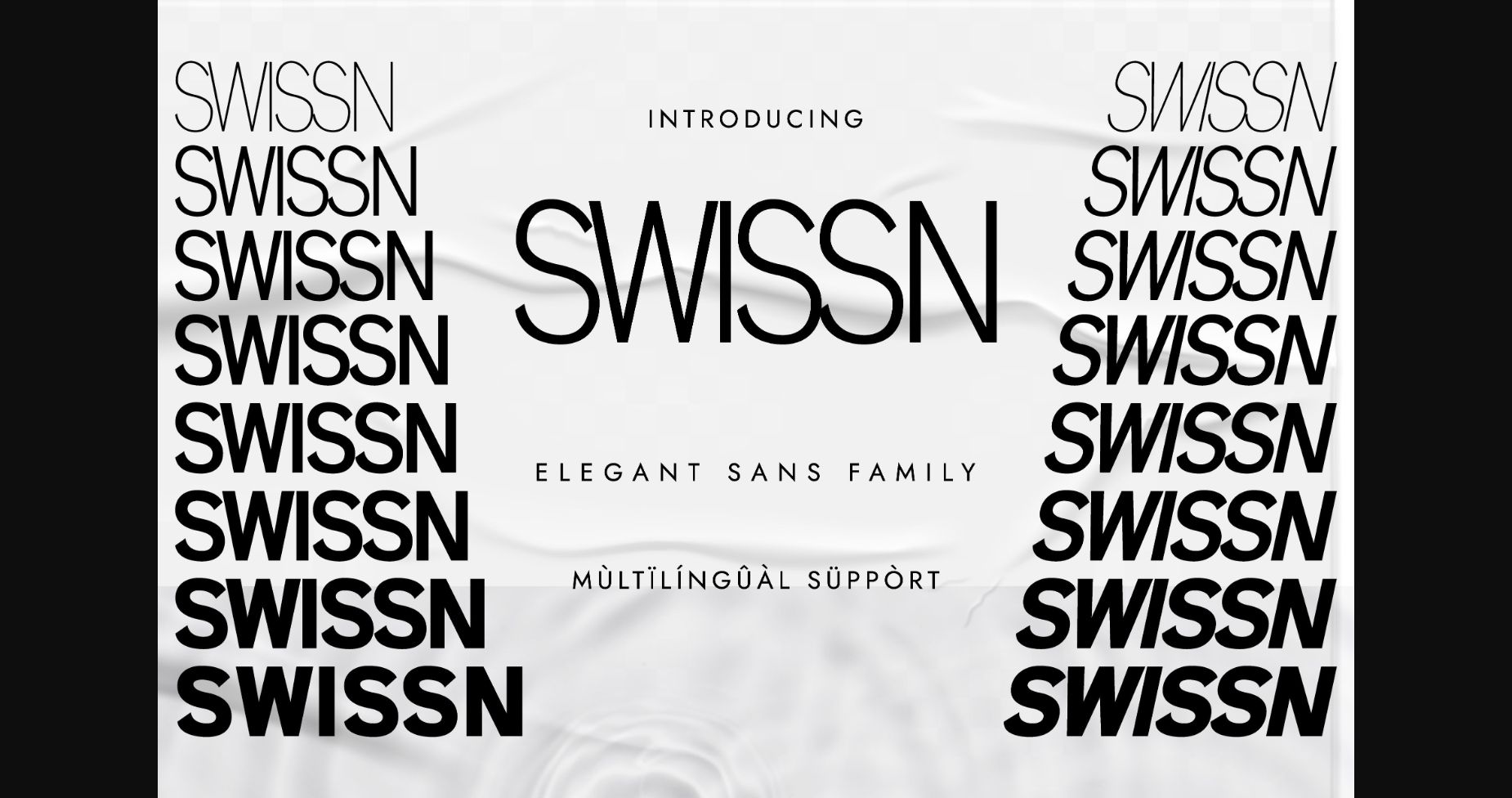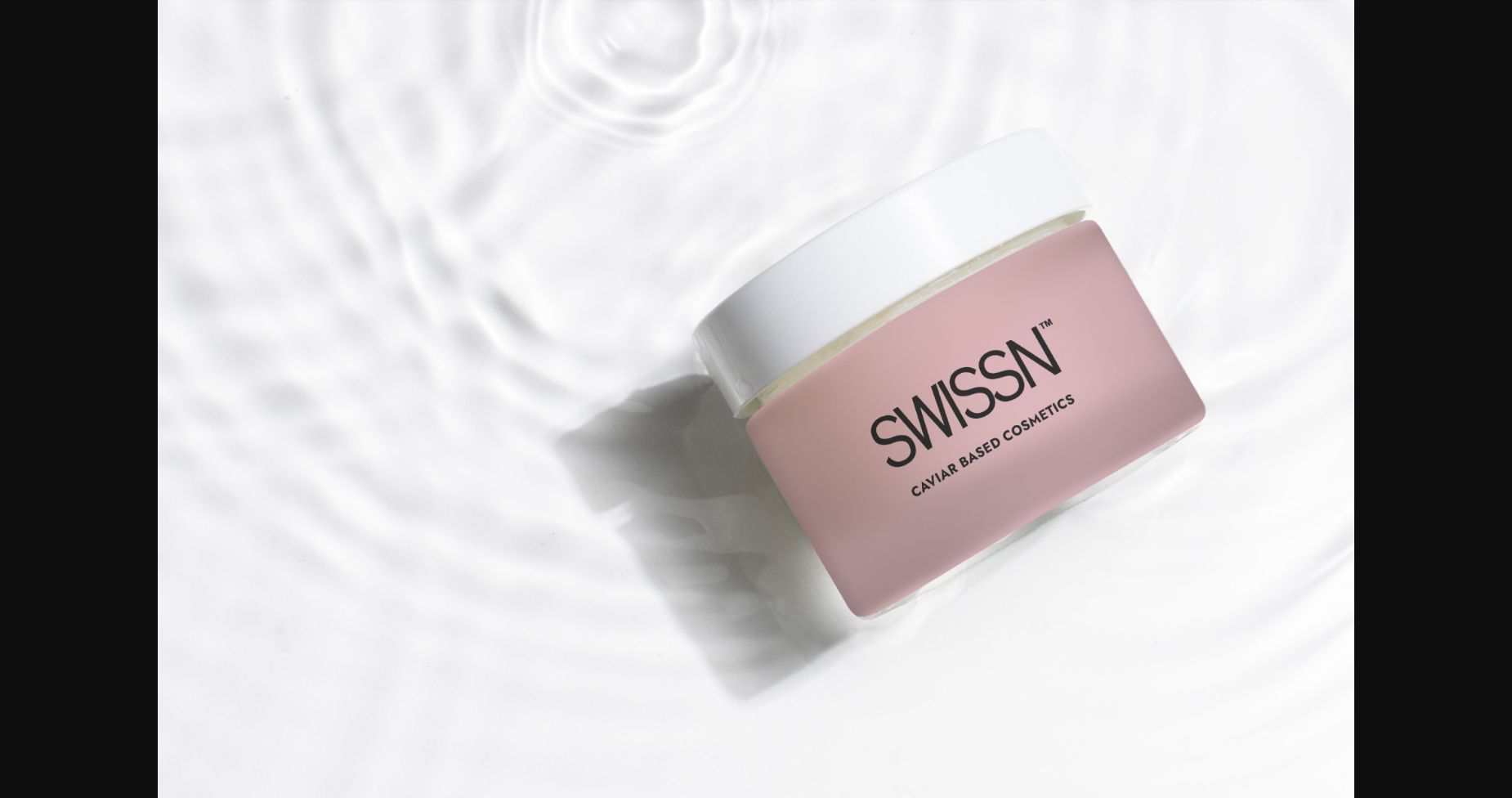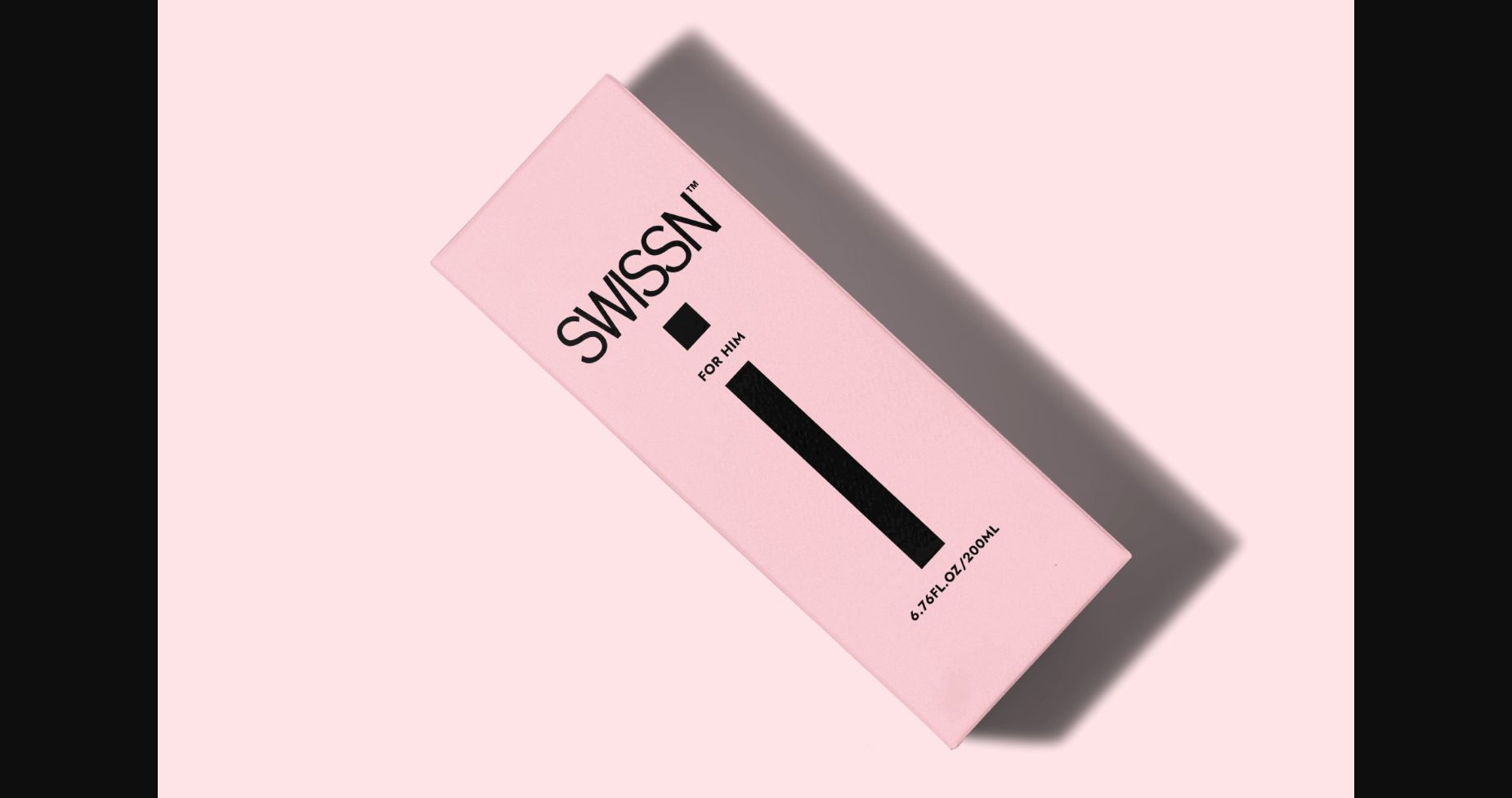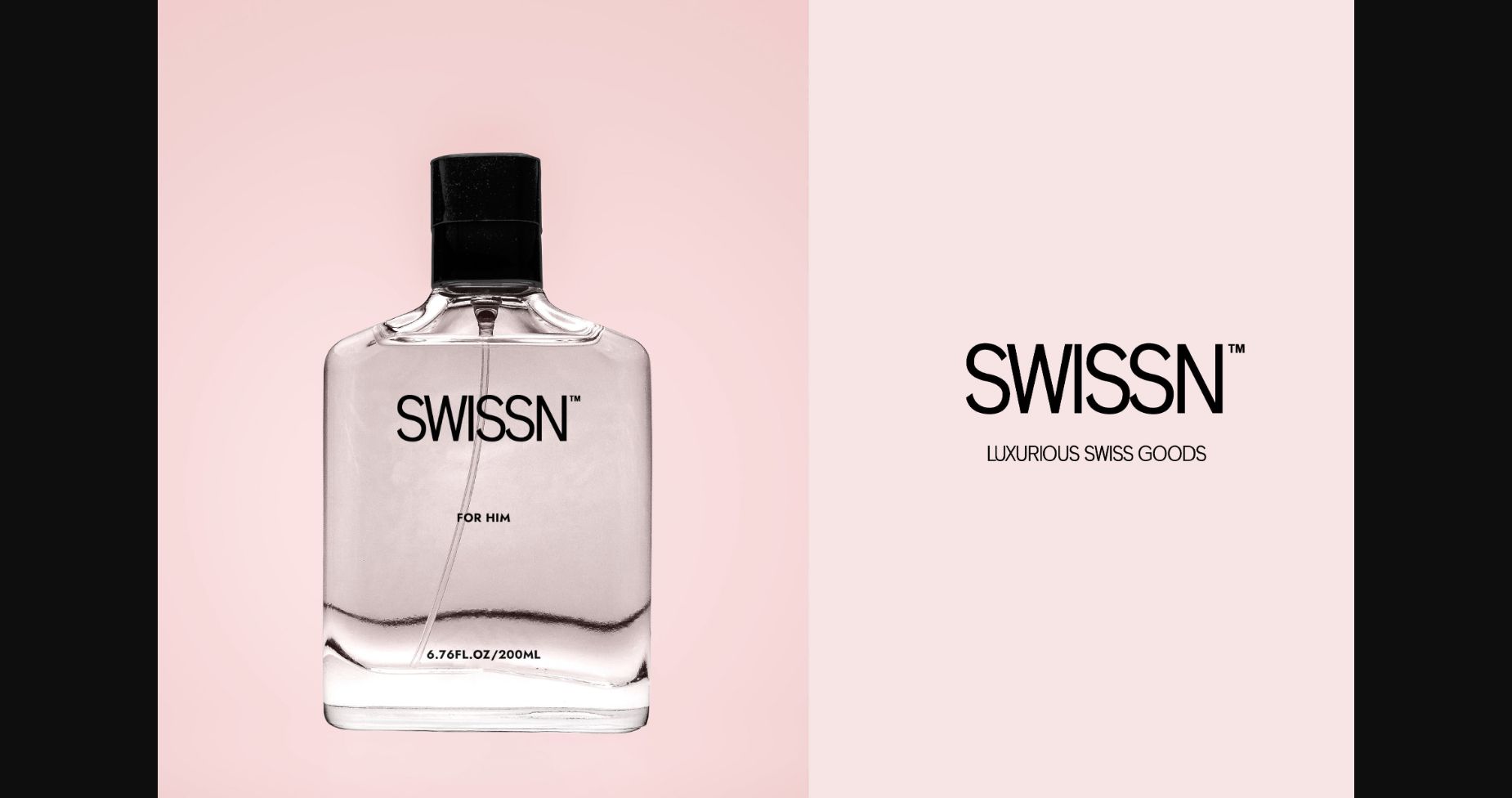
HomeSans Serif FontsSwissn Font Sans Serif Fonts Swissn Font FacebookTwitterPinterestWhatsApp 1 of 6 ... Swissn Font Poster 2... Swissn Font Poster 3... Swissn Font Poster 4... Swissn Font Poster 5... Swissn Font Poster 6... About Swissn Font Swissn is a modern, classy sans serif typeface. Extremely versatile, this typeface is perfect for logos, weddings, invitations, quotes, advertisements, print, magazines, and more! DOWNLOAD NOW 196 0 People also explored Magnify Pro Font Lolyta Font Lock It Up Font Pharaoh Font Maneri Font Biography Font Ruttany Font Coman Font Family Time Royallice Font Mermaid Font Brouillard TagsSwissnSwissn Font Previous articleAlein FontNext articleStorylona Font LEAVE A REPLY Cancel reply Comment: Please enter your comment! Name:* Please enter your name here Email:* You have entered an incorrect email address! Please enter your email address here Website: Save my name, email, and website in this browser for the next time I comment. Unlock Endless Creativity with the FREE September Clipart Huge Bundle (Valued at $700!) Personal Use Free Angelia Personal Use Free Read more Girls Personal Use Free Read more BD Geminis Personal Use Free Read more Barokah Personal Use Free Read more BLOG Free Fonts Risk: Why Free Fonts Can Be Dangerous for Designers Free Fonts Risk: Why Free Fonts Can Be Dangerous for Designers Using free fonts is a common practice in web and graphic design. However, the... Exploring Font Trends Transform Your Website: Elevate Your Typography with 7 Best Web Font Generators To increase your work productivity, choose the most readable fonts.